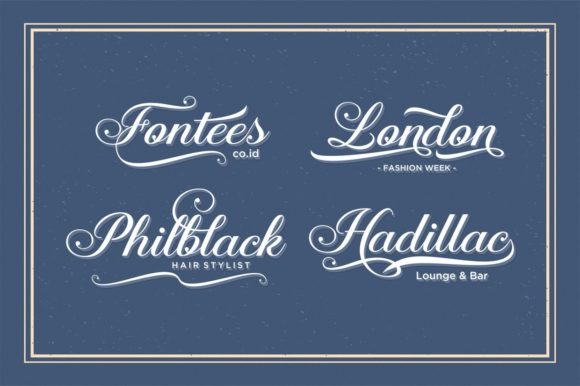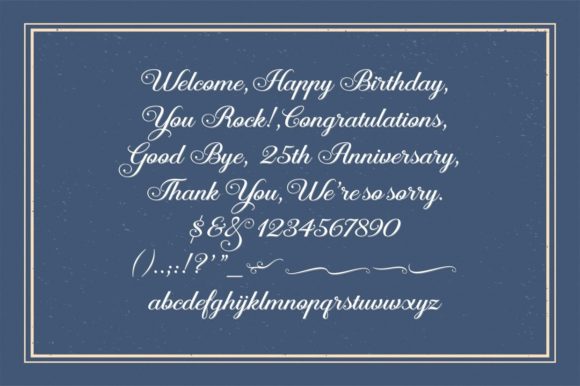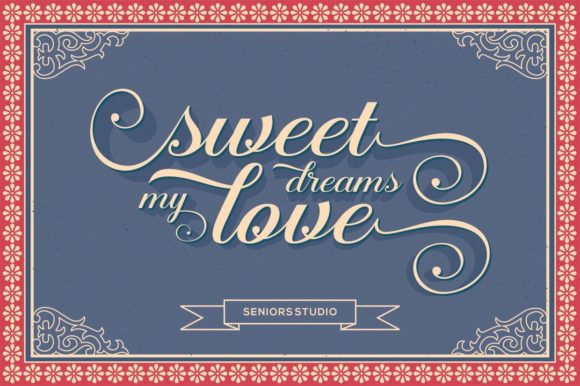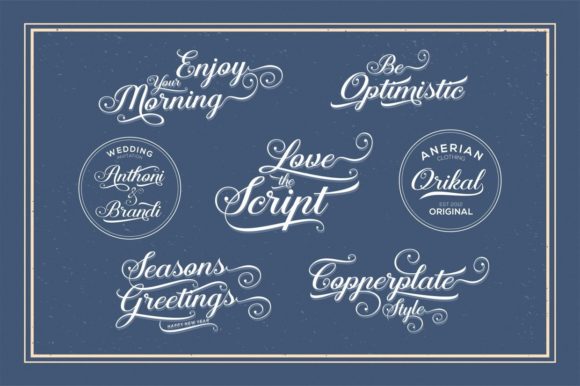
Aaron Font
About Aaron Font
Aaron, a beautiful and light handwritten font, is designed to deliver a unique feel and a stunning impact to your creative projects. With its distinct charm, this font promises to add a touch of luxury and sophistication to any design endeavor you wish to undertake.
The beauty of Aaron lies in its handwritten style, bringing a personal and intimate touch to your typography. The light and graceful strokes of each letter contribute to the overall elegance, making it a font that stands out with a subtle yet impactful presence.
Whether applied to branding materials, invitations, or any design project in need of a luxurious spark, Aaron rises to the occasion. Its versatility allows it to adapt seamlessly to various contexts, ensuring that your designs exude a sense of refinement and style.
The unique feel of Aaron sets it apart, making it a font that leaves a lasting impression. Its stunning impact is felt across different applications, from logos to headlines, where the combination of beauty and lightness creates a visual language that is both captivating and memorable.
In summary, Aaron is more than just a font; it is a beautiful and light handwritten script that adds a luxurious spark to your designs. With its unique feel and stunning impact, Aaron becomes a valuable asset for designers looking to infuse their projects with elegance and sophistication. Let Aaron be the font that elevates your creative endeavors, leaving a lasting and beautiful imprint.